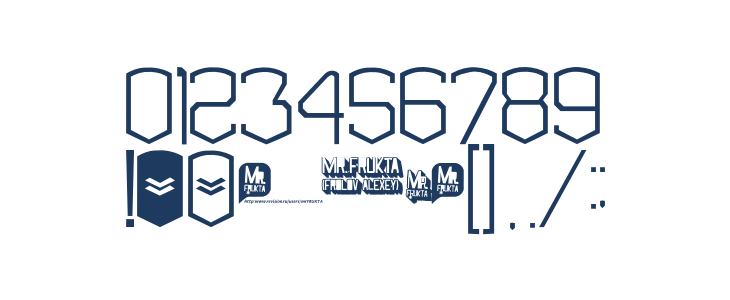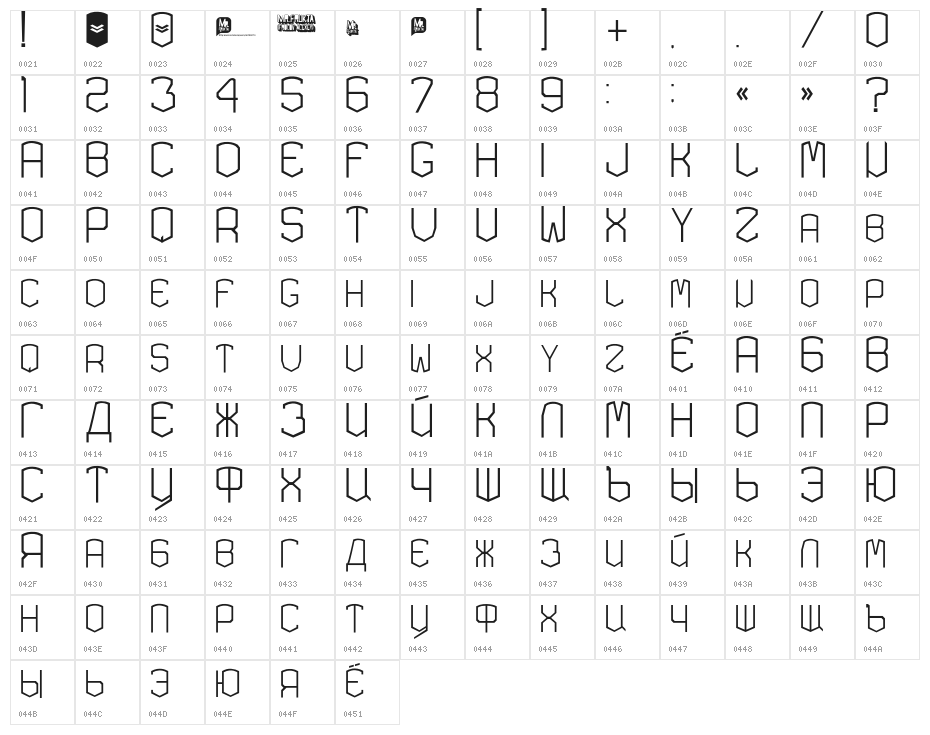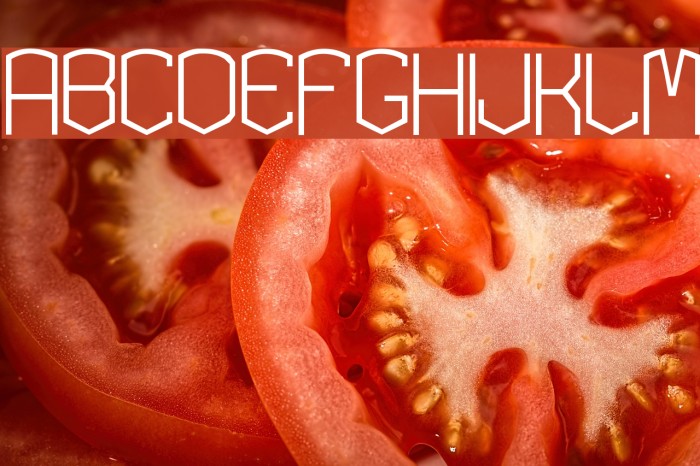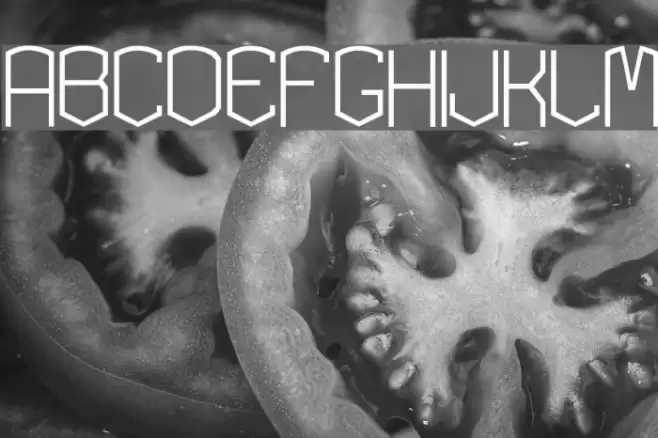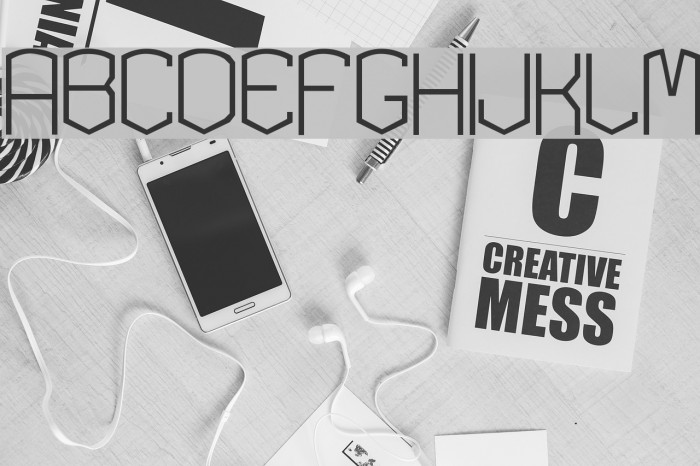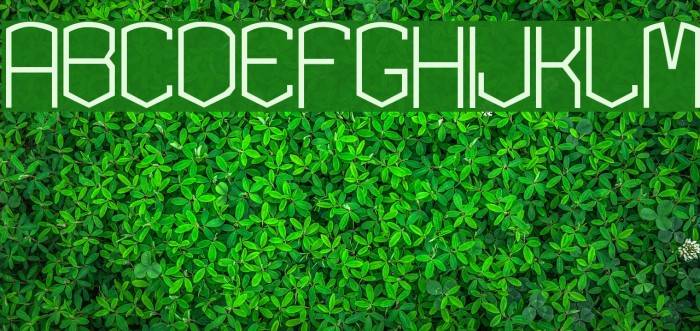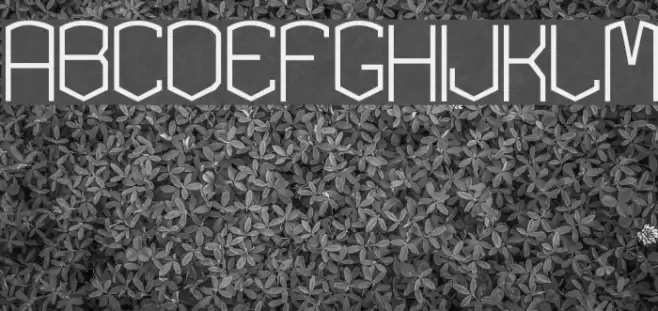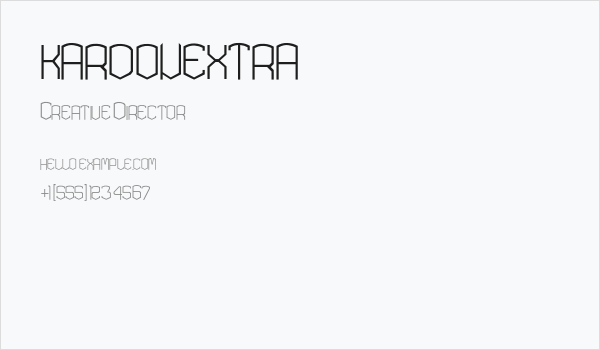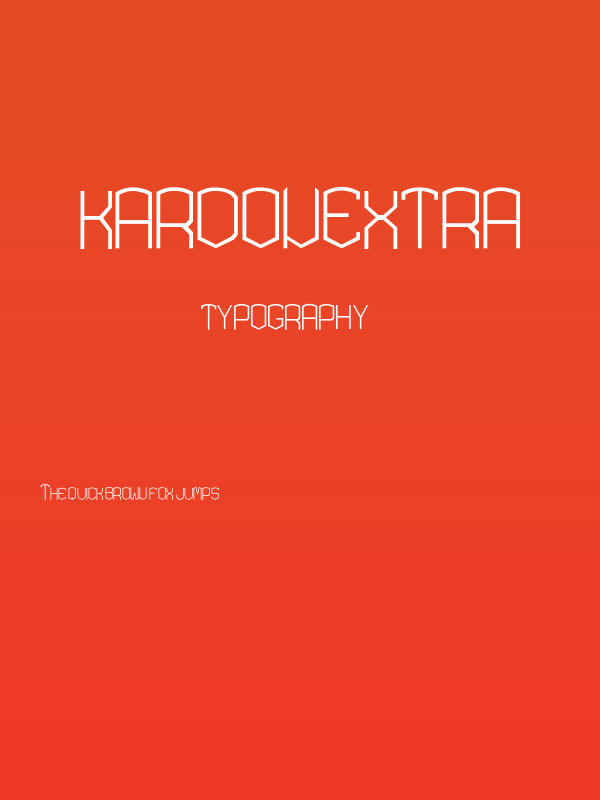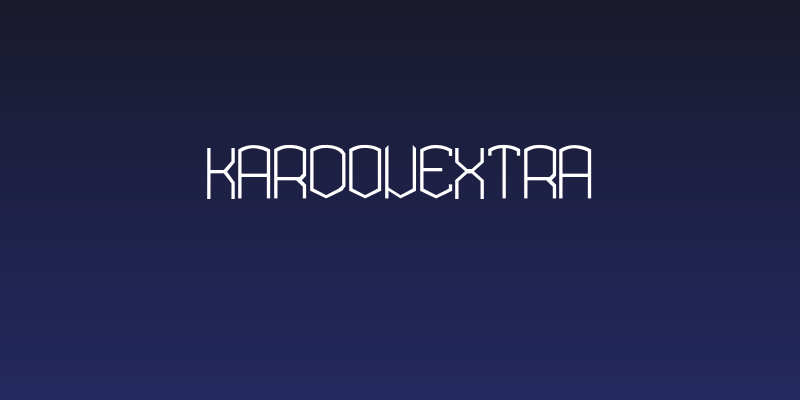
KARDONEXTRA Font
KARDONEXTRA Description
This font features a geometric and angular design, characterized by its sharp edges and consistent line thickness. The uppercase and lowercase letters maintain a uniform height, creating a cohesive and structured appearance. The numerals and special characters follow the same angular style, ensuring a seamless integration across all text elements. This font's unique aesthetic is both modern and futuristic, making it ideal for projects that require a bold and distinctive look. The consistent stroke width and lack of curves give it a technical and precise feel, suitable for digital and print media.
| Proposed Projects | Ideal for technology branding, video game titles, sci-fi posters, and digital interfaces. |